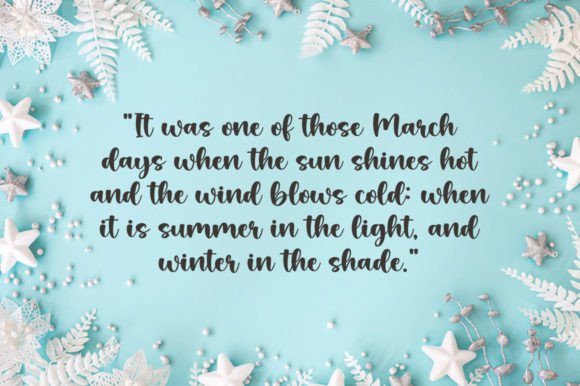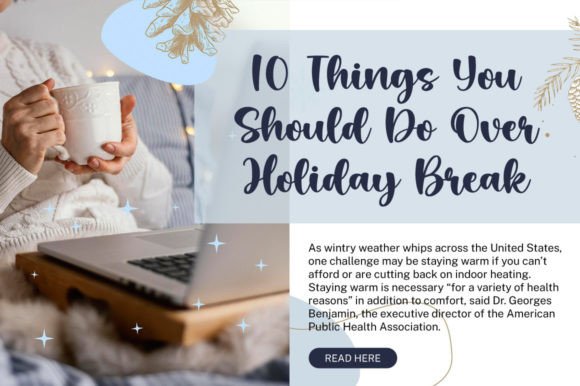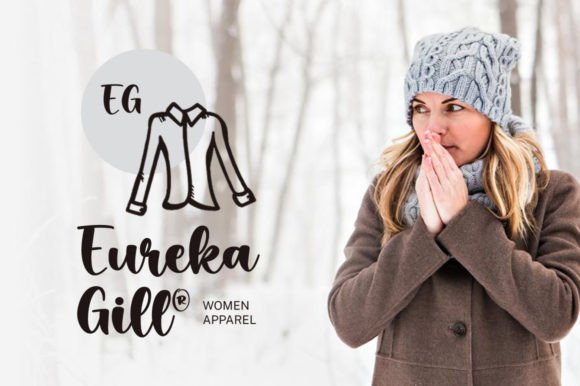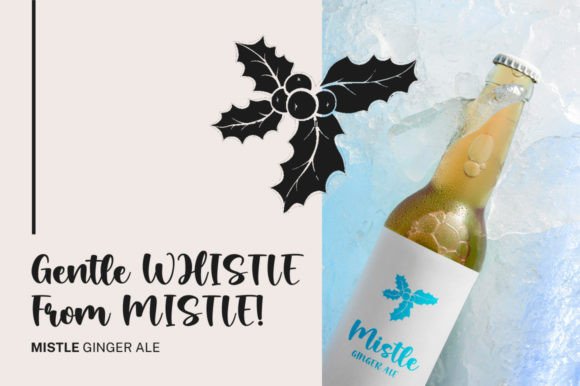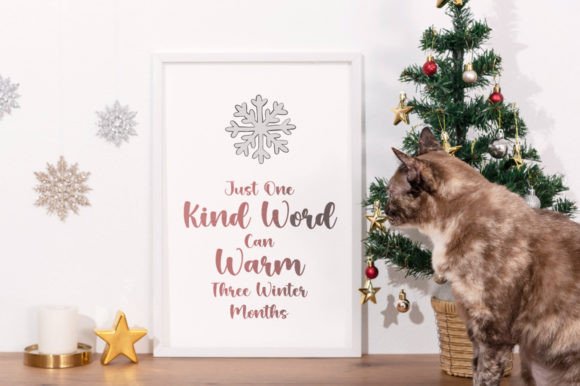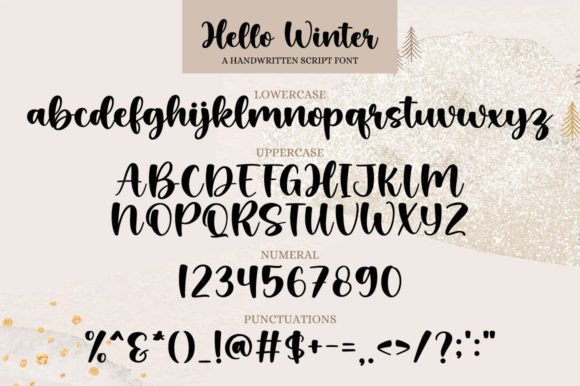
Cozy Up with the Perfect Winter Typography
As the crisp air sets in and the nights grow longer, I find myself curled up with a warm cup of coffee and a blank page, waiting for inspiration to strike. And then it hits me – the perfect typography to match the winter wonderland outside. This is when I reach for the Hello Winter Font, a delicate, elegant, and flowing handwritten font that never fails to capture the essence of the season.
Designed to evoke a sense of serenity and coziness, Hello Winter Font is more than just a font – it’s a winter wonderland in a typeface. Its beautiful and well-balanced characters make it a versatile choice for a wide range of designs, from invitations to greeting cards, and even social media graphics.
Hello Winter Font Key Features
- Font Family: Hello Winter is a unique and modern script font designed for various winter-themed projects.
- Resolution: Designed to work at high resolutions, Hello Winter is ideal for use in digital designs, including social media graphics, posters, and websites.
- Unique Characteristics: Features a flowing, handwritten style with intricate details and subtle flourishes, perfect for adding a touch of winter magic to your designs.
Designer Review: Hello Winter Font
Hello Winter Font is a beautiful winter-themed font that’s perfect for the holiday season. Here are some things that really stand out to me:
- ✨ The unique winter-inspired design is visually striking and instantly conveys a sense of coziness and festivity. The combination of snowflakes, pinecones, and other winter elements creates a cohesive and recognizable aesthetic.
- ✨ The font is highly customizable, with a range of color options and effects that allow designers to tailor the look to their specific project. This level of flexibility makes it easy to integrate into various design applications.
- ✨ The font is available in a range of weights, from light to bold, which allows designers to create a sense of hierarchy and emphasis in their designs.
- ⚠️ The font may be too on-the-nose for some projects, particularly those that require a more subtle or minimalist approach. In these cases, the overt winter theme may detract from the overall design.
- ⚠️ The font may not be suitable for use in body text or other large blocks of text, as the design elements can become overwhelming and difficult to read.
Overall, I think Hello Winter Font is a great choice for designers looking to add a touch of winter wonder to their projects. While it may not be the best fit for every design, it’s a versatile and eye-catching option that’s sure to add some festive flair to any project.
Tips for Getting the Most Out of Hello Winter Font
Use Hello Winter Font to create a cozy and inviting atmosphere in your designs. Pair it with warm colors and textures to enhance its winter feel. Experiment with different font sizes and styles to add depth and visual interest.
Hello Winter Font is perfect for winter-themed designs, such as holiday cards, invitations, and social media graphics. It’s also great for creating cozy and inviting branding materials, like logos and business cards.
Alternatives to “Hello Winter Font”
Bebas Neue is a modern sans-serif font perfect for creating a clean and minimalist design. It is ideal for use in headings, logos, and other display typography where a strong, bold font is required. Bebas Neue has a similar feel to Hello Winter Font, but with a more geometric and futuristic aesthetic.
Playfair Display is a luxurious and elegant serif font ideal for use in high-end designs, such as luxury branding, fashion, and fine art. It features intricate details and ornate flourishes, making it perfect for adding a touch of sophistication to your design. Unlike Hello Winter Font, Playfair Display is more ornate and less minimalist, but both fonts share a sense of elegance.